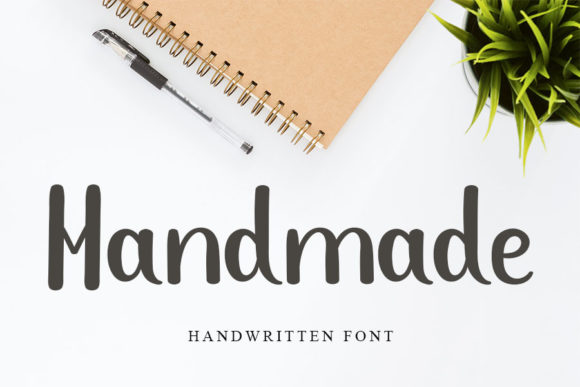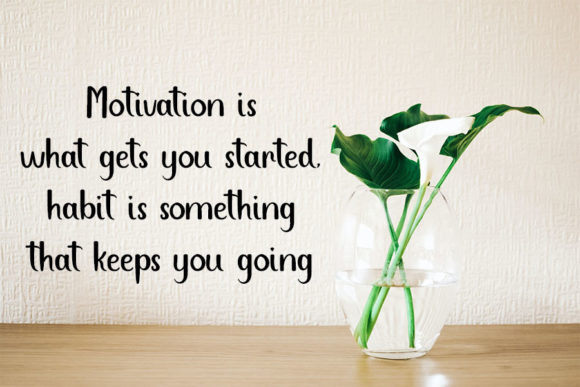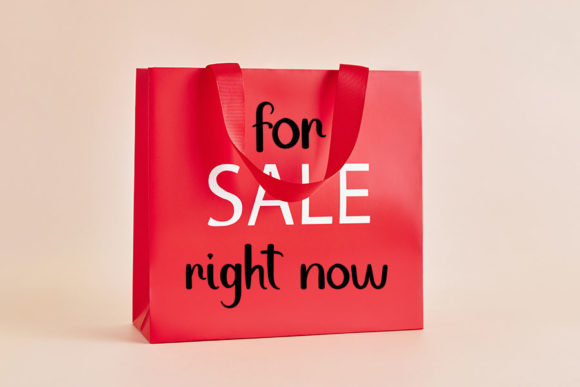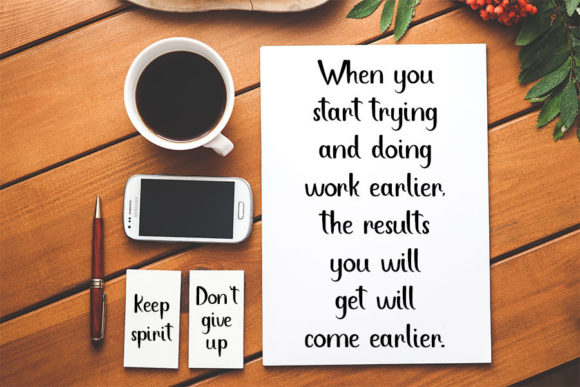
**Handmade Font: Slim and Delicate Handwritten Elegance**
Introducing *Handmade Font*, a slim and delicate handwritten typeface that exudes a dainty and joyful charm. Ideal for a variety of designs, this font is perfect for writing wedding invitations, cards, or any project that requires a romantic and personalized touch.
The elegance of *Handmade* lies in its slim and delicate strokes, creating a visual experience that is both refined and personalized. Each letter is crafted with care, capturing the essence of handwritten charm and adding a touch of joy to your designs.
Perfect for wedding invitations, cards, and other romantic projects, *Handmade* adapts gracefully to various design contexts. Its slender form and delicate demeanor make it an ideal choice when you want to infuse a sense of elegance and personalization into your creations.
Consider *Handmade Font* as a charming tool that allows you to add a romantic and personalized touch to your designs. Each letter becomes a brushstroke of joy, turning your projects into visually appealing works that resonate with a refined and delicate aesthetic.
In summary, *Handmade Font* is more than just a typeface; it’s an invitation to enhance your designs with slim and delicate handwritten elegance. Embrace its refined charm, letting it become the cherished element that elevates the romantic and personalized appeal of your creative endeavors.